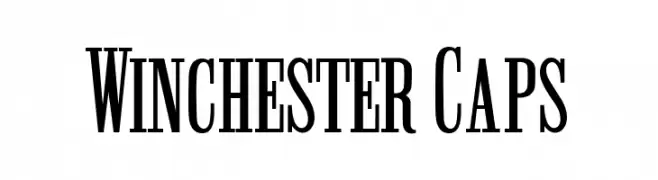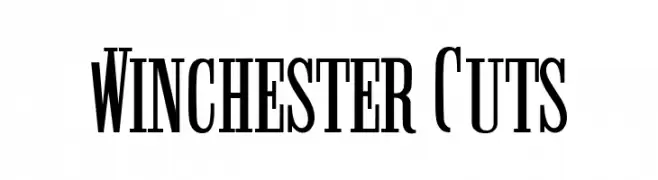
An elegant, high-contrast serif font with tall, slender letterforms.
A bold, tall serif typeface with strong vertical emphasis and elegant serifs.
A bold, condensed serif font with high contrast and sharp serifs.
A bold, high-contrast serif font with tall, narrow letterforms and pronounced serifs.